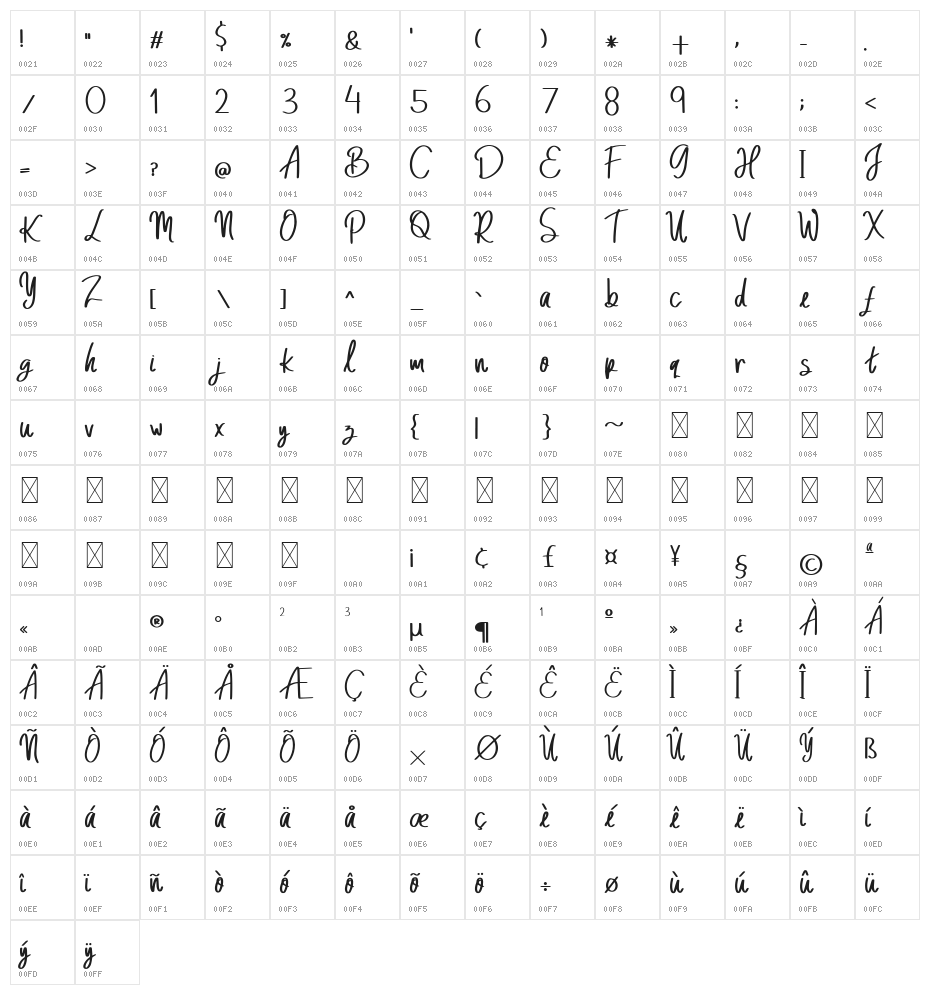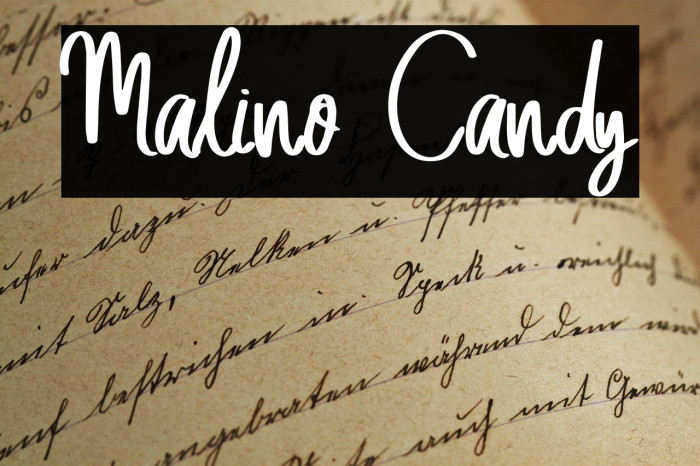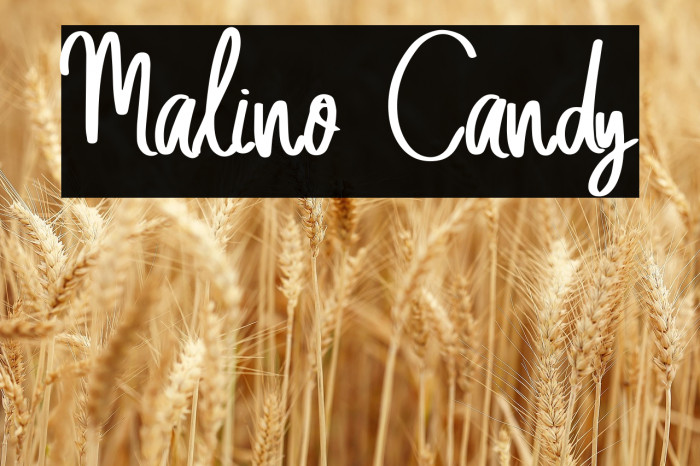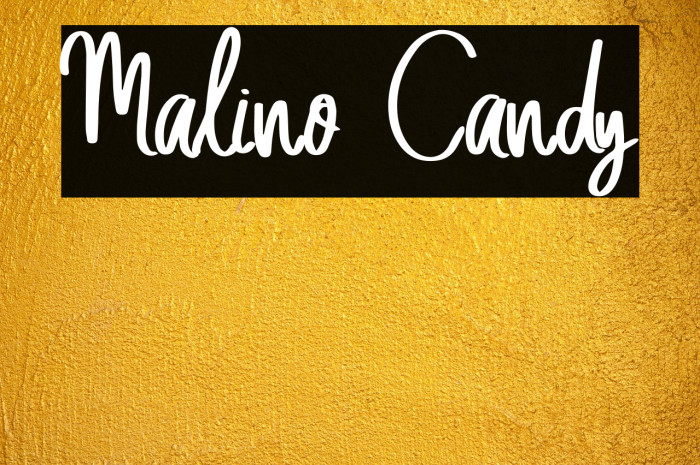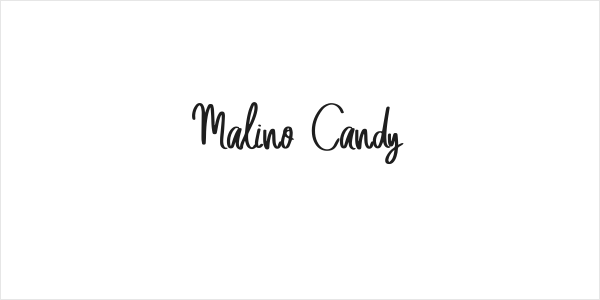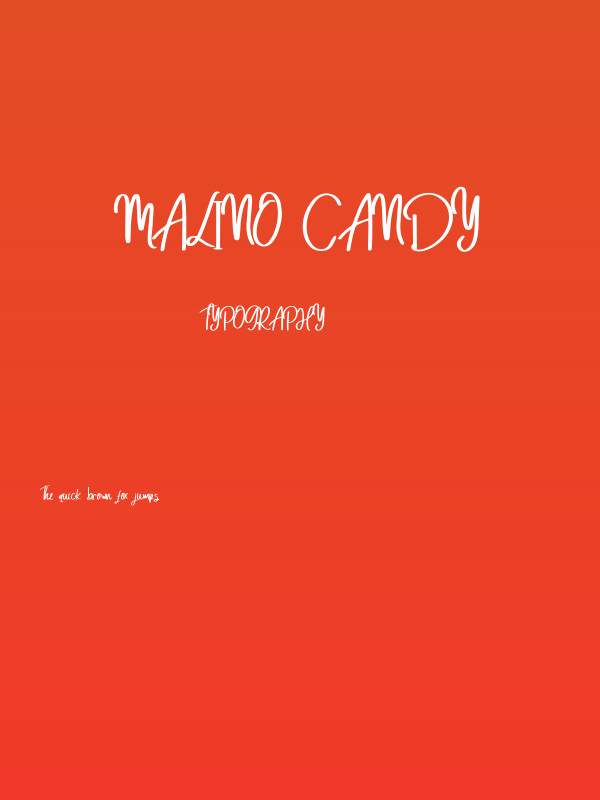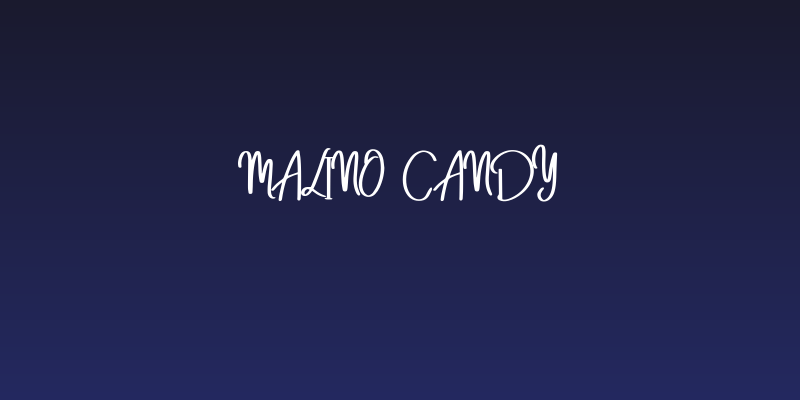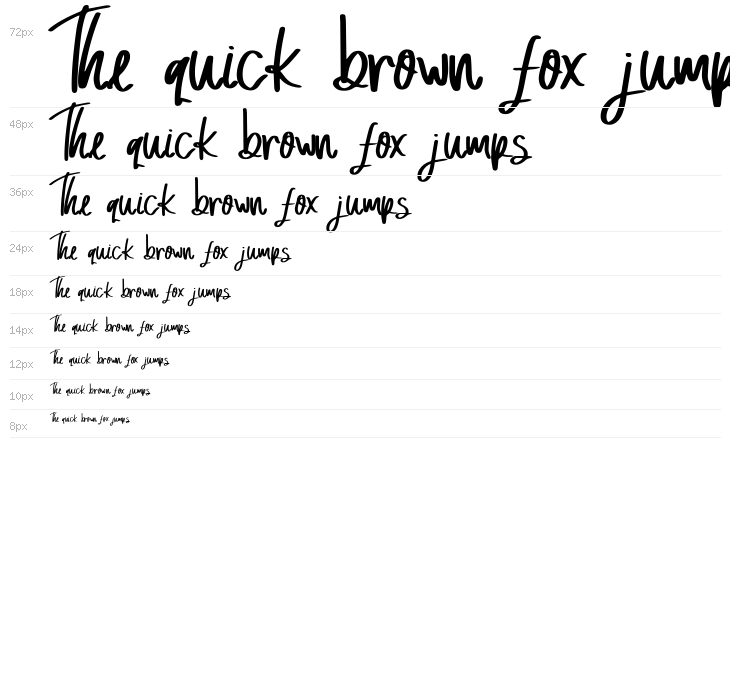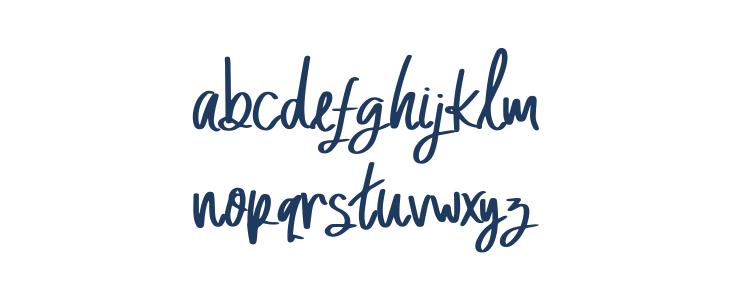
Malino Candy Font
Malino Candy Description
This font features a playful and energetic script style, characterized by its fluid and connected letterforms. The uppercase letters are bold and expressive, with a slight slant that adds a dynamic feel. The lowercase letters maintain a consistent flow, enhancing readability while preserving the font's whimsical nature. Numbers and special characters are designed to complement the overall style, ensuring versatility across various applications. The strokes are moderately thick, providing a balanced contrast that makes the font suitable for both digital and print media.